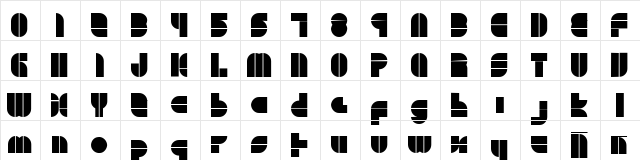
DE STIJL Normal
Design Context for DE STIJL Typeface
DE STIJL is a composed and adaptable typeface that performs quietly and consistently across a wide range of design contexts.